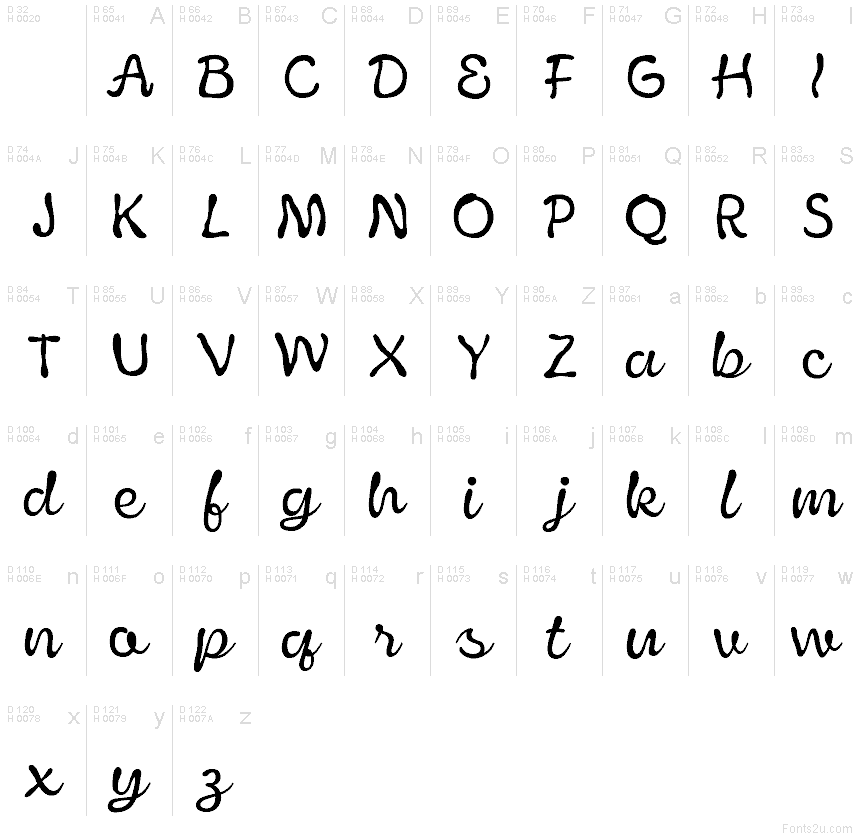
CS Adelina Regular Demo
CS Adelina font by Craft Supply Co. is a free regular brush script display font. It solves a familiar pain point: getting hand-lettered warmth without sacrificing clarity. Smooth, lightly slanted strokes keep rhythm consistent, while rounded terminals and gentle contrast create a soft, inky feel that stays readable at medium sizes. The spacing breathes—no cramped joins, no awkward jumps—so your lines flow like a confident signature.
Using CS Adelina works beautifully for boutique branding, bakery packaging, wedding suites, social posts, gift tags, signage, and cozy product labels. The steady baseline and friendly curves add charm without mess, giving headlines an effortless “written by hand” polish. Pair this free font with a clean geometric sans in small caps to ground the script, and let CS Adelina carry the emotional punch.